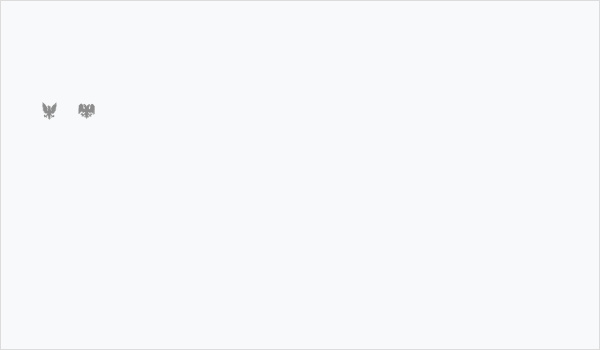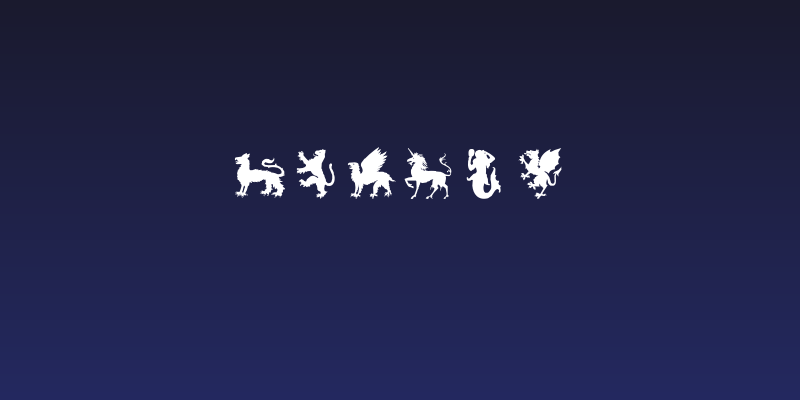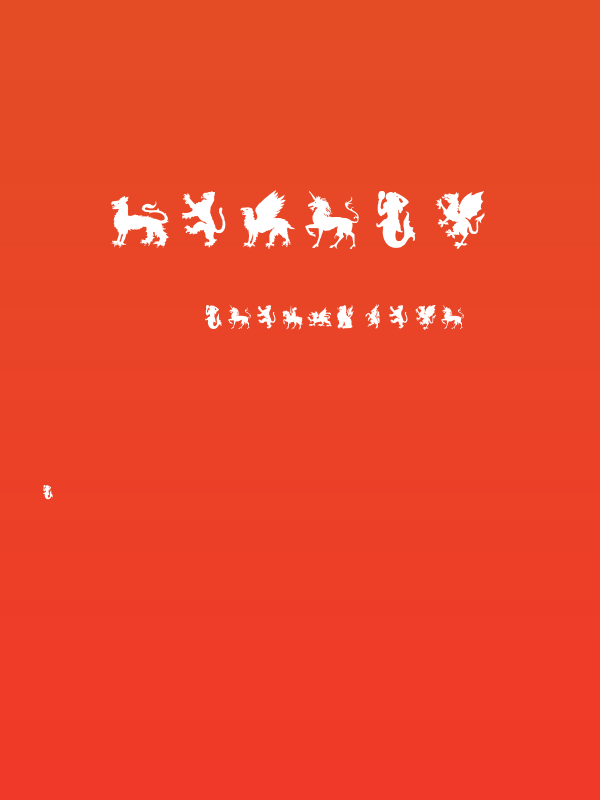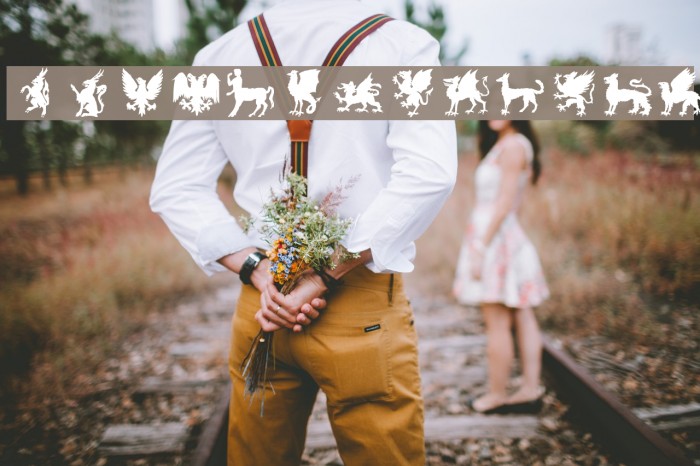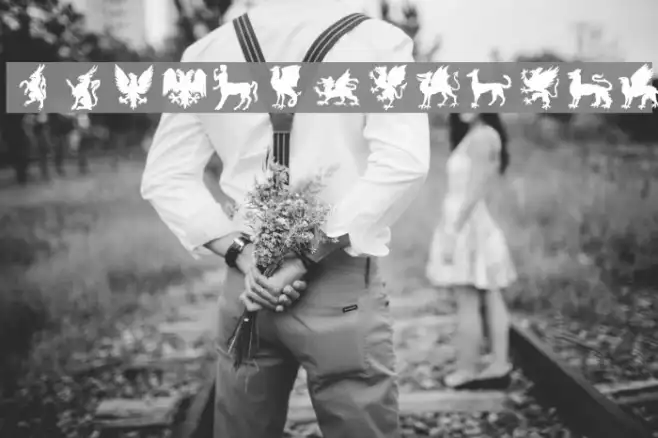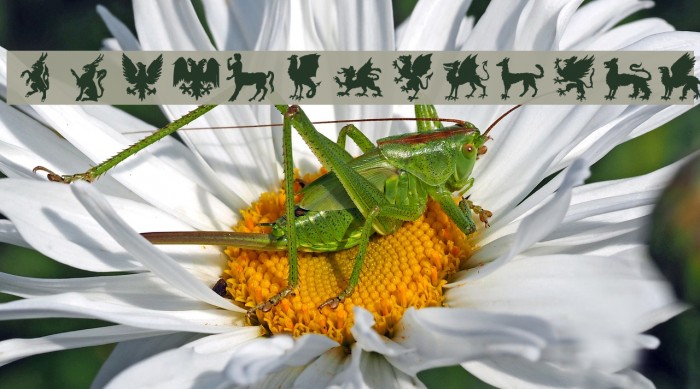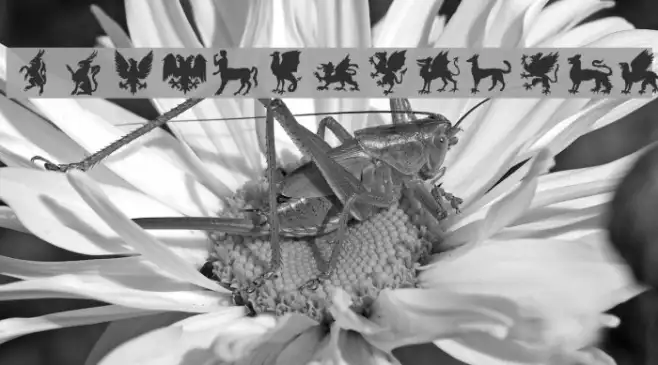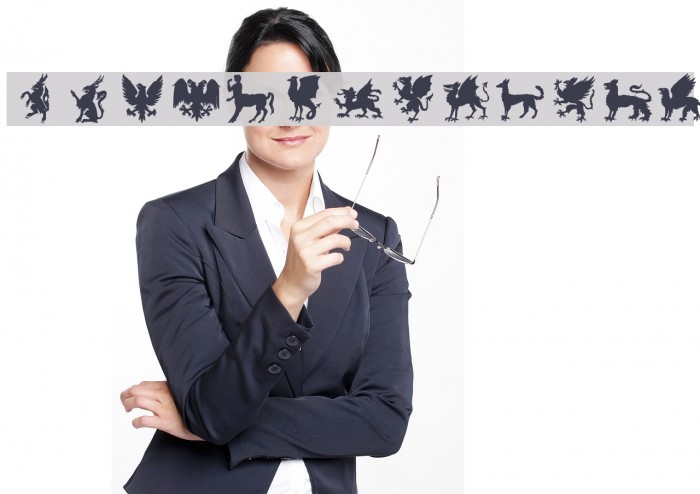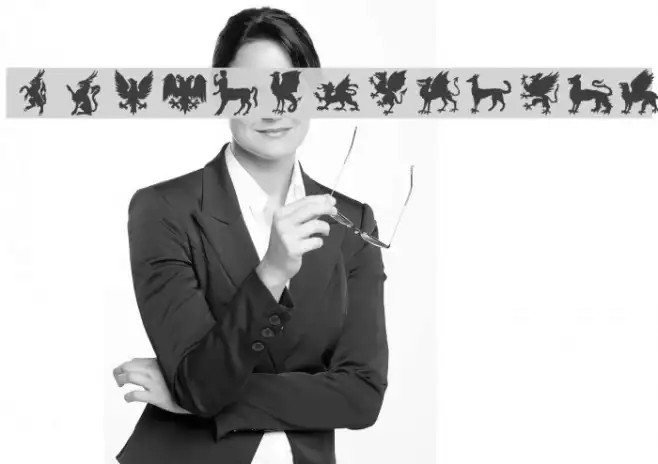
lpmyth Font
lpmyth Description
This is a decorative font featuring silhouettes of mythical creatures. Each character is represented by a unique mythical figure, such as dragons, griffins, and centaurs, crafted with intricate details and bold outlines. The design is highly imaginative, capturing the essence of fantasy and mythology. The characters are evenly spaced, ensuring clarity and distinction between each figure. The font's artistic style is both whimsical and dramatic, making it ideal for creative projects that require a touch of fantasy.
| Use Case | Logos, Posters, Creative projects |
| Proposed Projects | Ideal for fantasy-themed posters, book covers, game designs, and creative branding projects. |